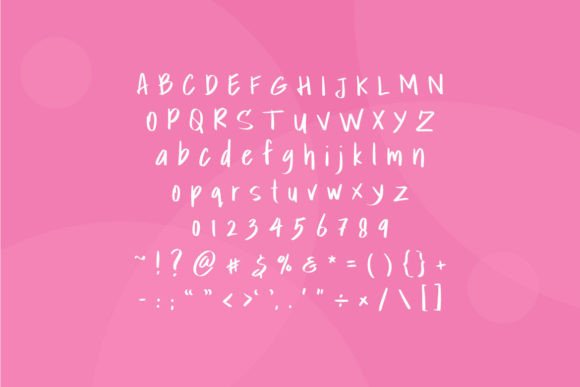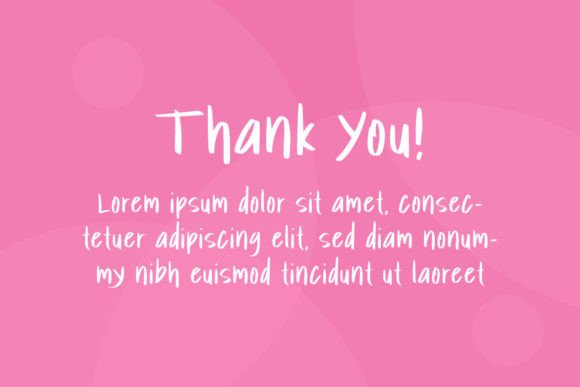
Introduction to Mother Diary Font
Have you ever found yourself rummaging through your grandmother’s old trunk, discovering a stash of beautiful, handwritten letters and journals? The feeling of holding something so personal and full of love is truly special. For designers, that same feeling can be recreated with the right design resource – and that’s where the Mother Diary Font comes in.
This high-quality, free font is perfect for any creative project that requires a touch of warmth and personality. With its beautiful, well-balanced characters and transparent background, it’s easy to see why designers love using Mother Diary Font for their crafty ideas.
Key Features of Mother Diary Font
- High-quality design with a transparent background, ideal for creative projects.
- Includes a full character set, covering Latin, Cyrillic, and Greek alphabets.
- Unique characteristics: Distressed texture and subtle imperfections, giving it a vintage and personal touch.
Honest Review: Mother Diary Font
As a designer, I’m always on the lookout for high-quality design resources to elevate my creative projects. The Mother Diary Font is one such find that caught my attention. Upon closer inspection, I found that it has a lot to offer, but also some limitations.
What works well is the font’s unique, cursive style, perfect for creating a whimsical and feminine touch in your design. The transparent background also makes it easy to work with, allowing you to layer it over other elements without any visual clutter.
- ✨ High-quality design with a unique, cursive style
- ✨ Transparent background for easy layering
However, I did encounter some limitations. The font’s flexibility is limited, making it less suitable for bold or technical designs. Additionally, the character set is relatively small, which may not be ideal for longer text passages.
Overall, I would say that the Mother Diary Font is a great addition to any designer’s toolkit, especially for creative projects that require a touch of elegance and whimsy. While it may not be the most versatile font, its unique style and transparent background make it a valuable resource for designers looking to add some personality to their work.
The Mother Diary Font is suitable for various creative projects, including wedding invitations, baby shower invitations, and personal journals. Its high quality and unique design make it an ideal choice for designers and non-designers alike.